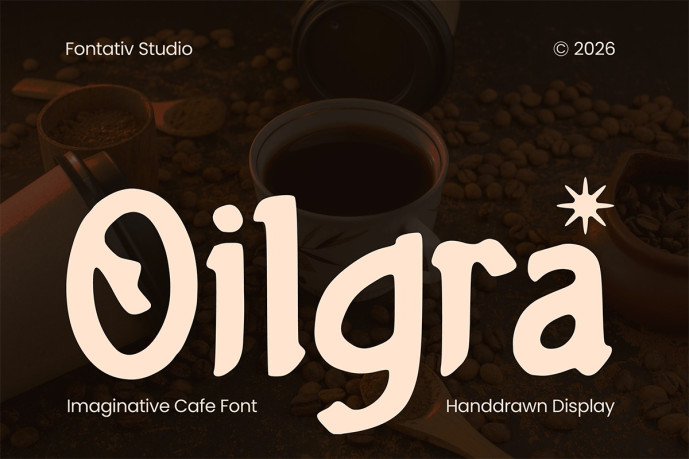
Oilgra – Cafe Handdrawn Display Font
Designer: Jamaludin Ahmad Sahestya Dharma
Oilgra is a handcrafted display font inspired by cozy coffee shops, artisan cafés, and handcrafted branding. Its organic letterforms, playful curves, and authentic handmade feel create warm, inviting typography while maintaining excellent readability for both print and digital designs.
Available in 1 style: Regular, Oilgra works seamlessly for café branding, coffee packaging, coffee shop logos, restaurant menus, bakery branding, product packaging, food labels, posters, signage, social media graphics, website headers, merchandise, invitations, greeting cards, and editorial layouts. It also includes multilingual support, making it suitable for creative projects worldwide.